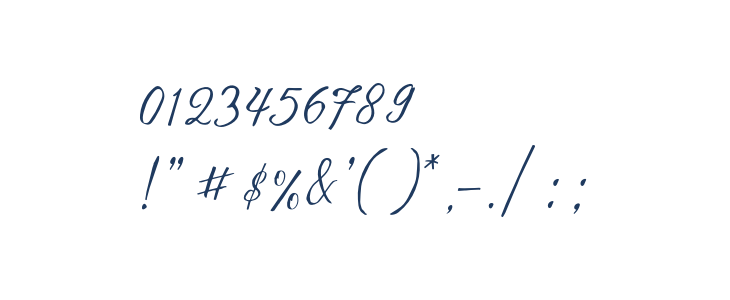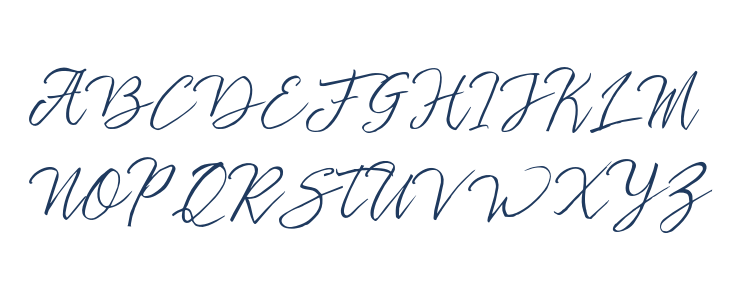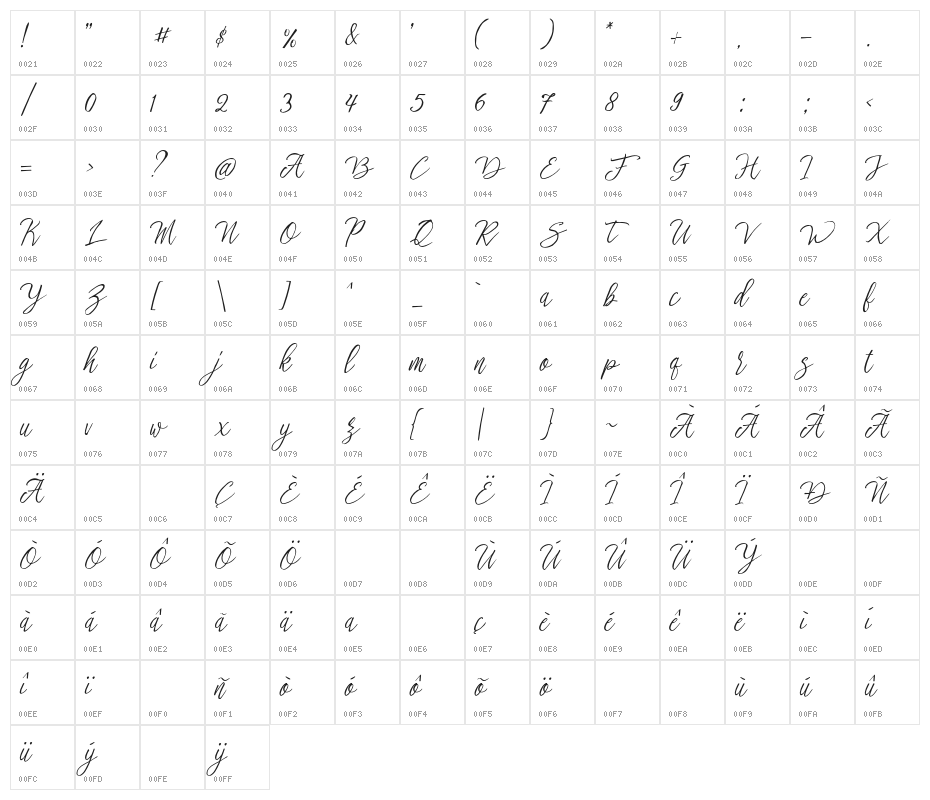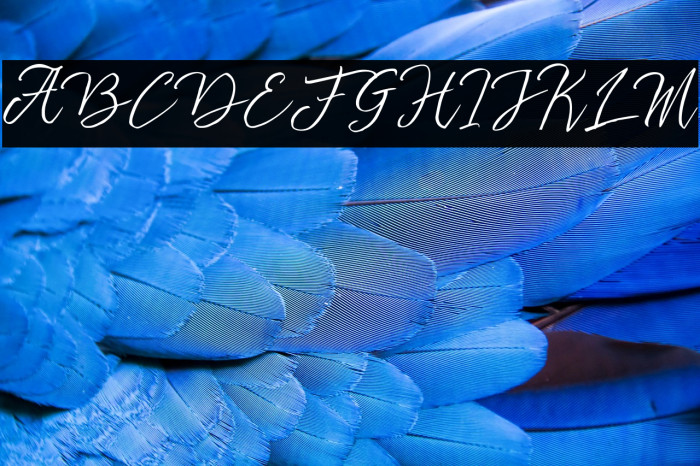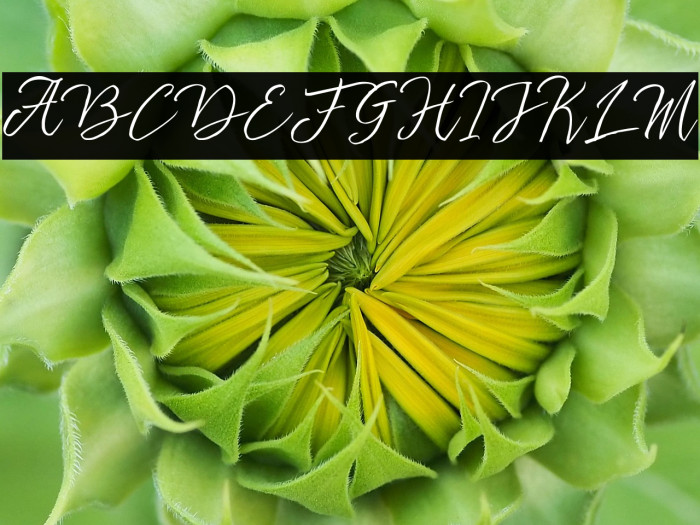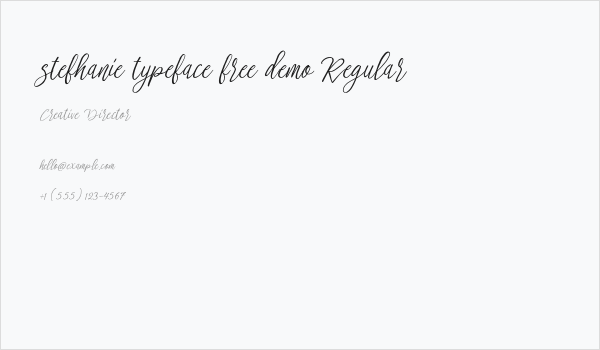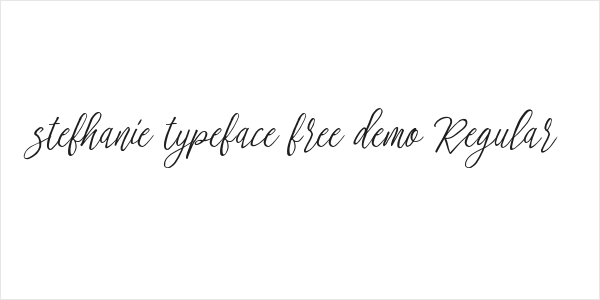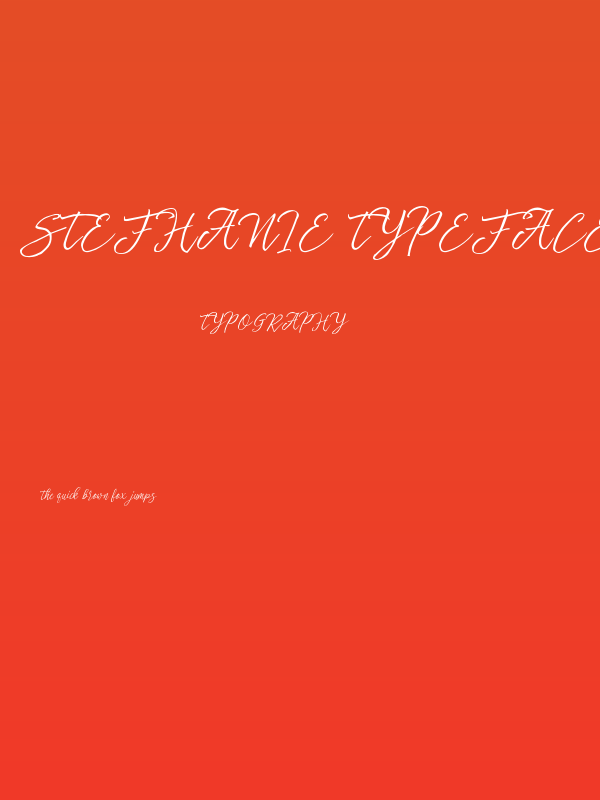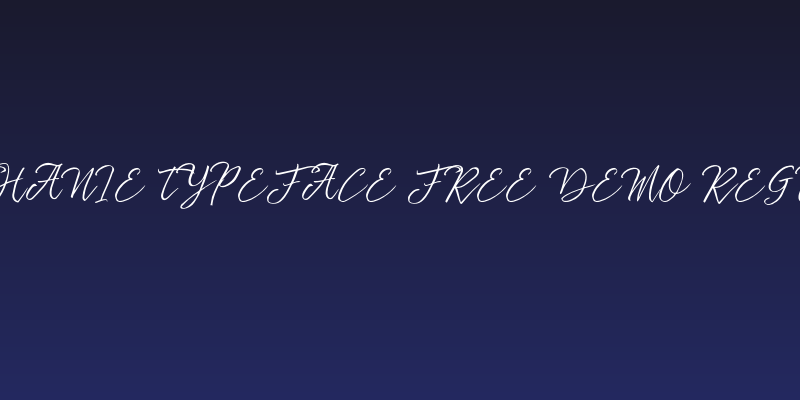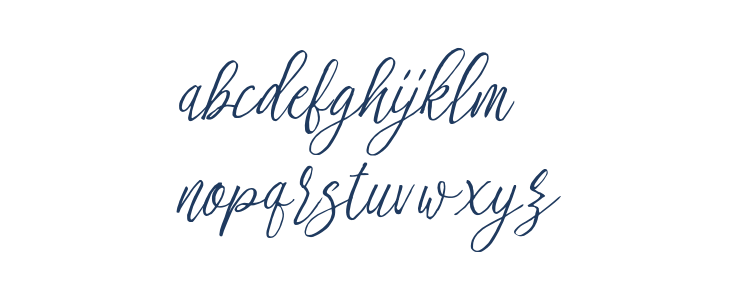
stefhanie typeface free demo Regular Font
stefhanie typeface free demo Regular Description
Elegant, cursive script font with flowing, handwritten style, featuring fine lines and a slightly slanted appearance.
| Overall Style | Elegant, Script, Handwritten |
| Use Case | Invitations, greeting cards, branding, logos, personal stationery. |